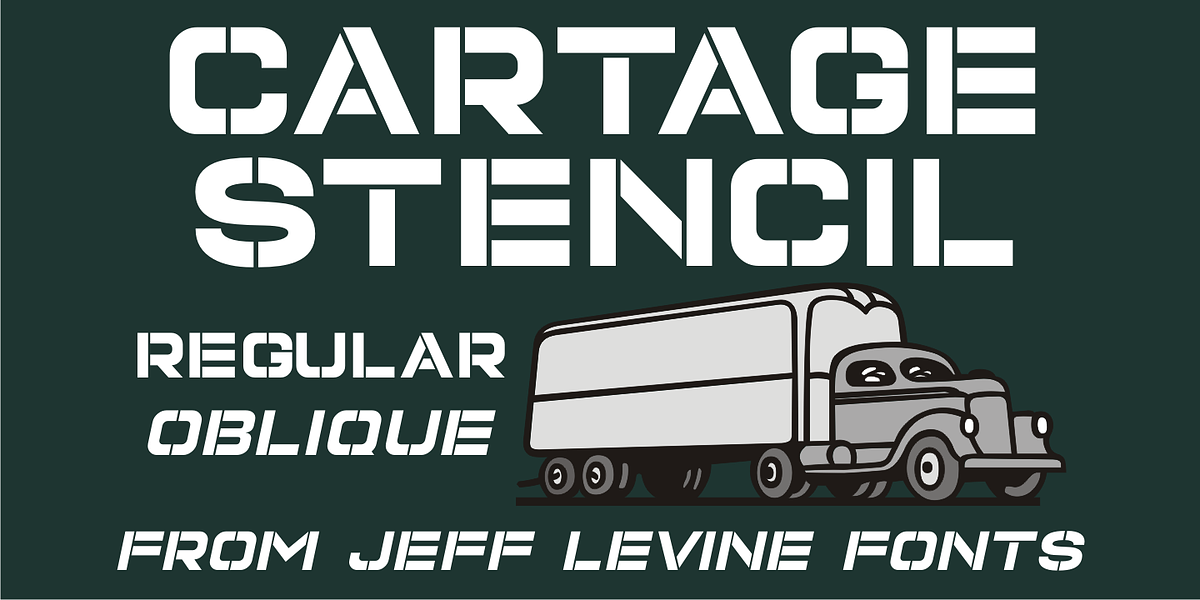
Cartage Stencil JNL
The sheet music for the title song of the 1960 movie “Exodus” had the name hand lettered in a block stencil style with rounded corners and narrow ‘rails’ [the breaks between the stencil parts].
Loosely based on this design and working from just the six letters of the title, Cartage Stencil JNL is available as a digital font in both regular and oblique versions.